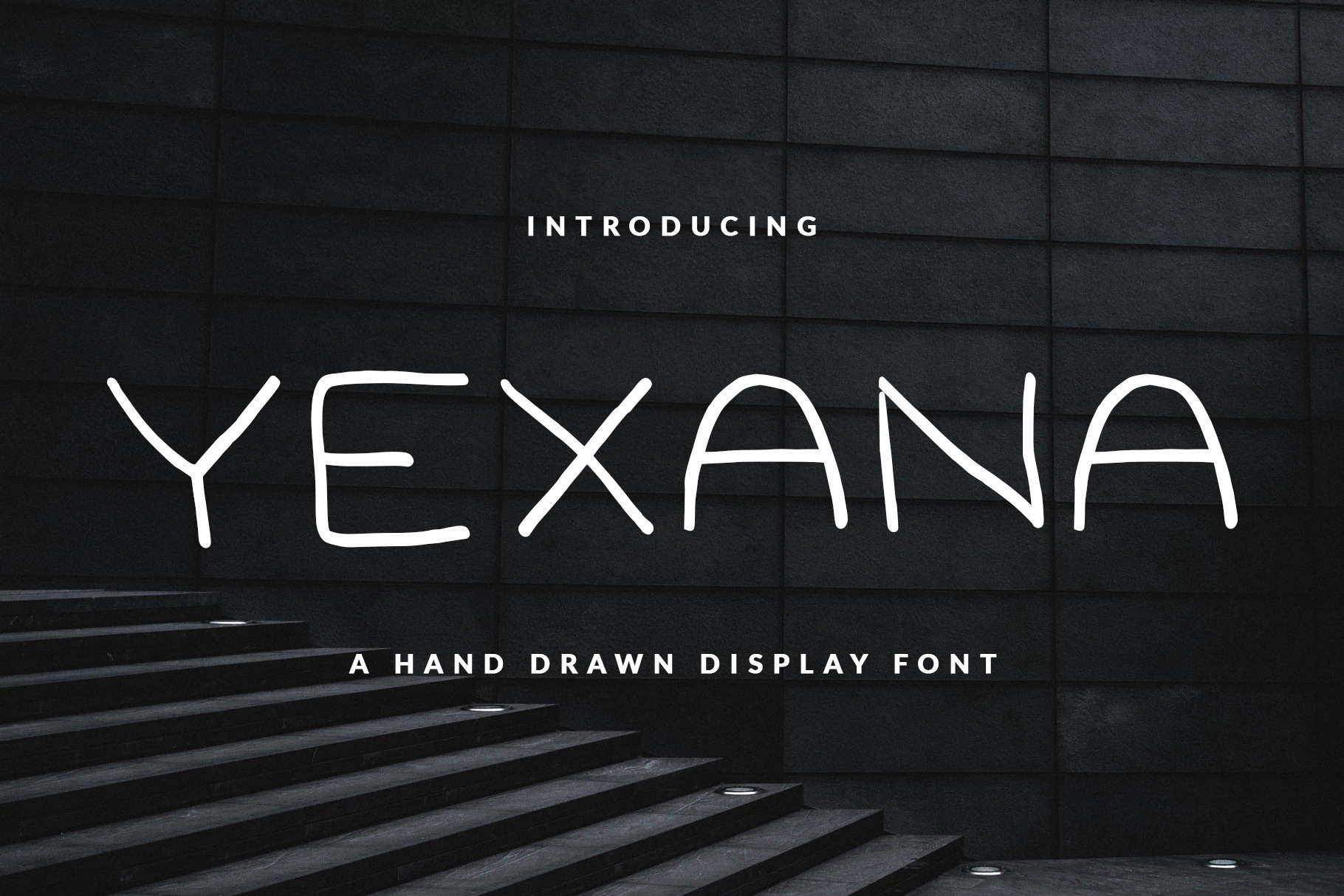
YEXANA FONT FOR HEADER & BOOK
Sans serif hand-drawn display font called WRINKLE was designed for modern, classic, thin, unique and other style also fit for Header website, general use for header text, kids stories, books, poems and other long text